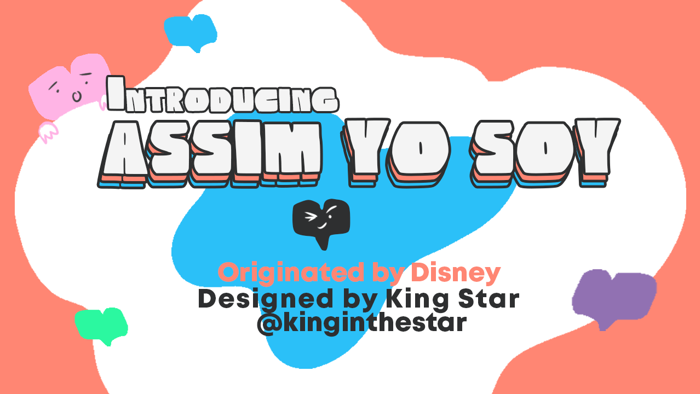
Assim Yo Soy Font
Also, this font was not made as a collaboration with Disney, the font in Disney Original Serie "BIA" is just a vector, Disney never launched the typography officially.
Además, esta fuente no se hizo como una colaboración con Disney, la fuente de la serie original de Disney 'BIA' es solo un vector, Disney nunca lanzó la tipografía oficialmente.